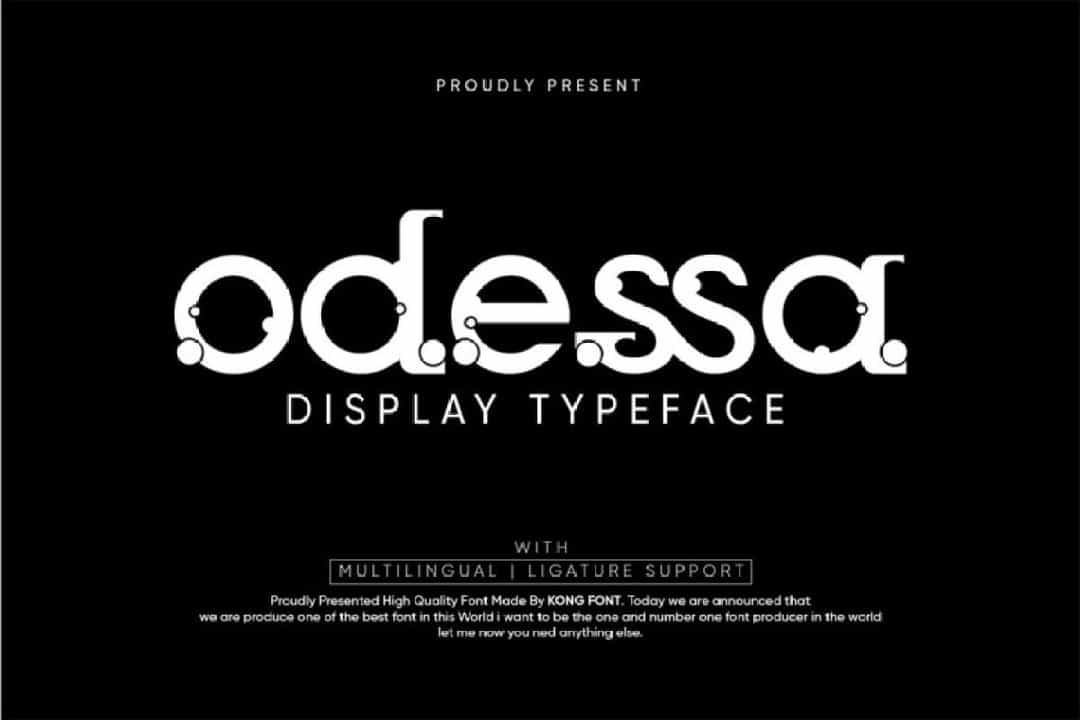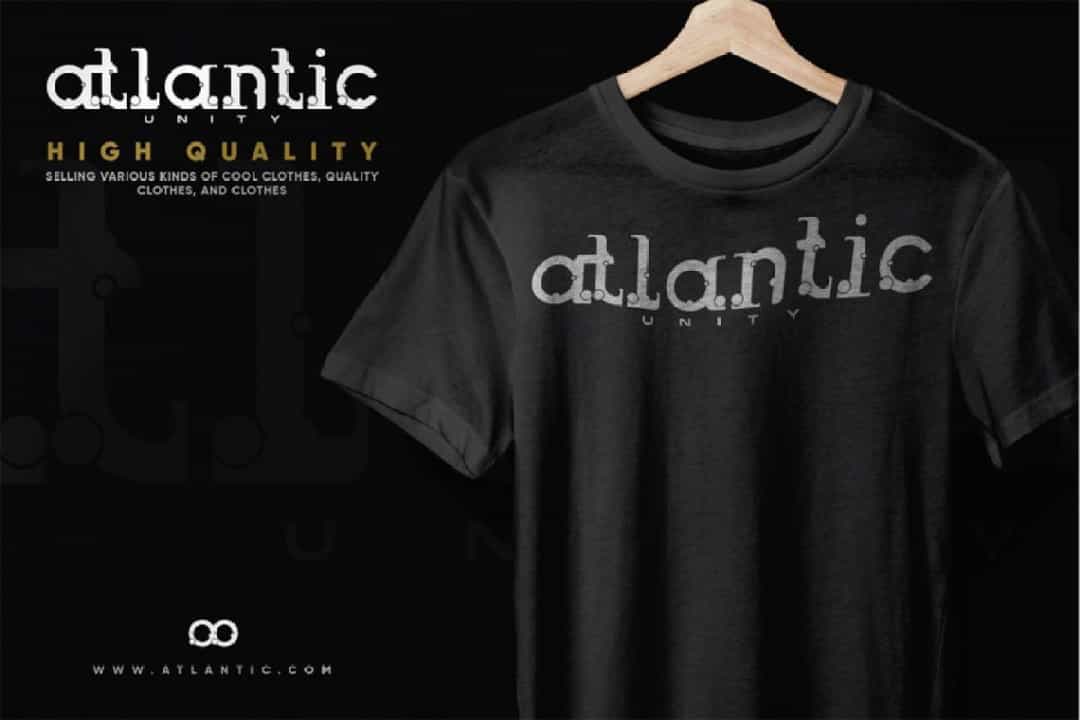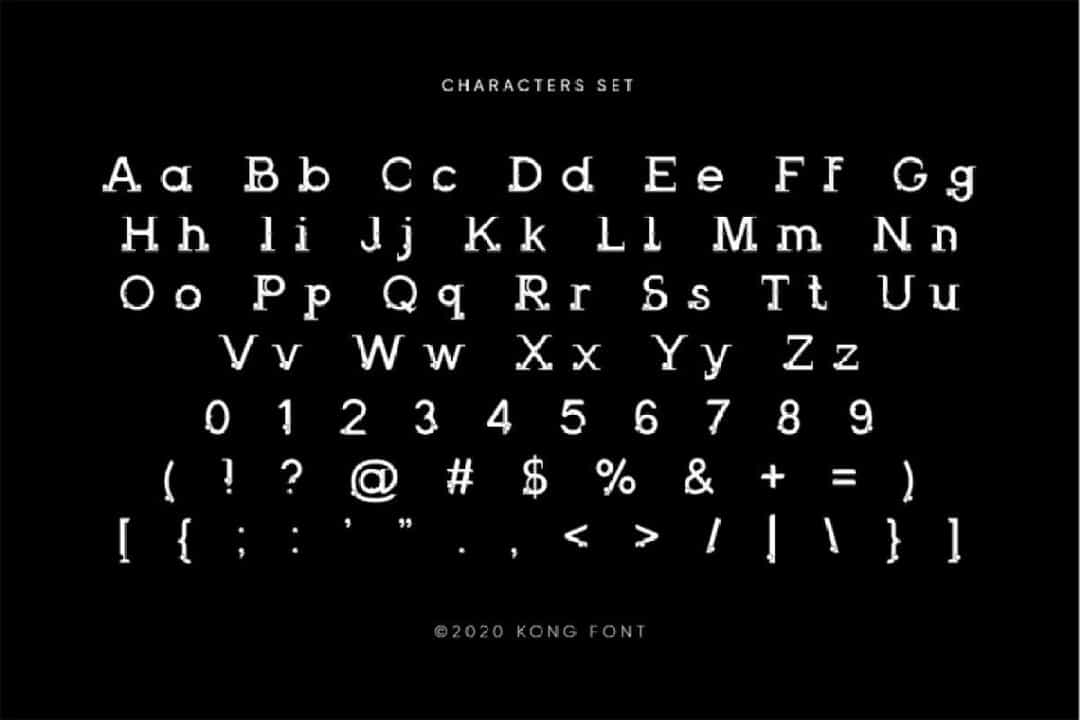
Odessa is a modern serif/sans-display font inspired by highway lettering manuals prior to 1980. Furthermore, this font is not for the first time that has been changed and updated to fit headings, brand names, logos, or any work that requires an elegant font with a hand impression style.